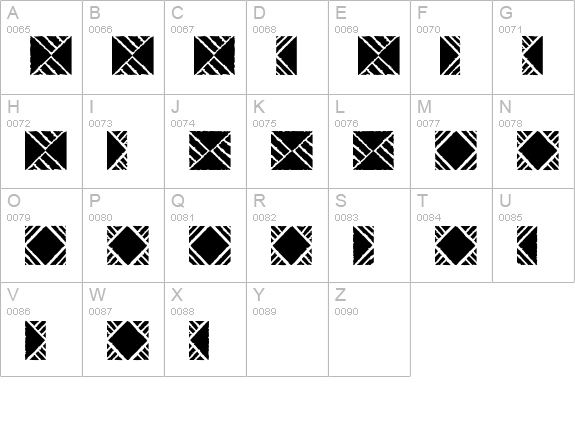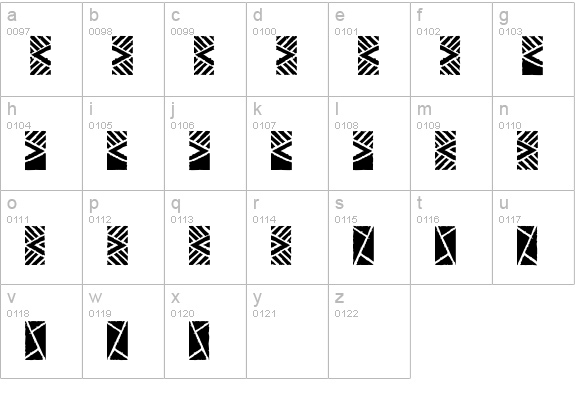
Stoned-RuleFour font is a captivating display typeface that exudes a sense of modernity and sophistication. Its sleek lines and geometric shapes give off a contemporary vibe that is perfect for projects seeking a touch of edginess. The font's bold and eye-catching appearance makes it ideal for headlines, branding, and various design projects where you want to make a statement. What sets Stoned-RuleFour font apart is its unique blend of elegance and eccentricity, making it a versatile choice for both professional and creative endeavors. Whether you're working on a sleek corporate presentation or a stylish poster design, this font will elevate your project with its distinct personality. The best part? Stoned-RuleFour font is freely available to download at FontsMarket.com, ensuring that you have easy access to this exceptional typeface for all your design needs. Don't miss out on the opportunity to add a touch of flair and individuality to your projects with Stoned-RuleFour font.